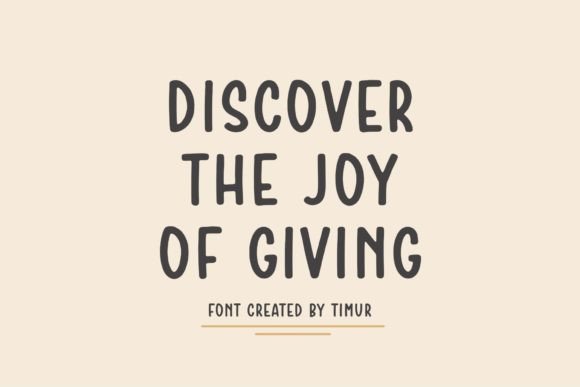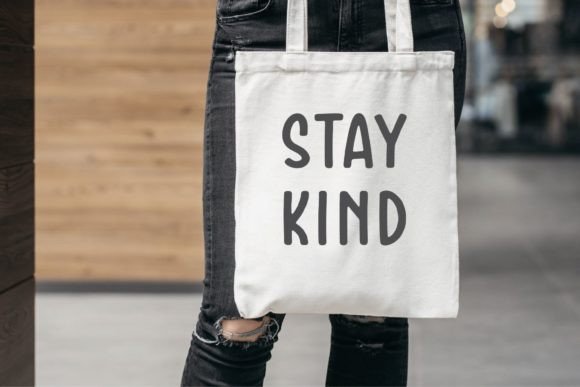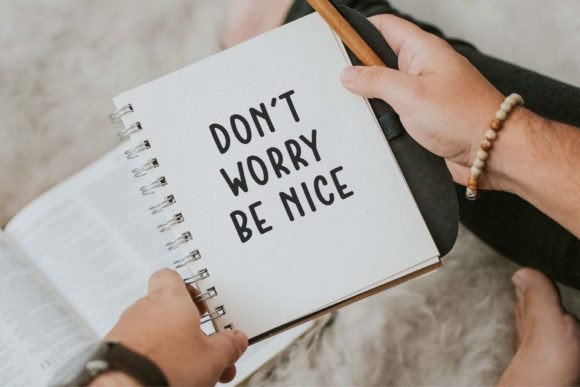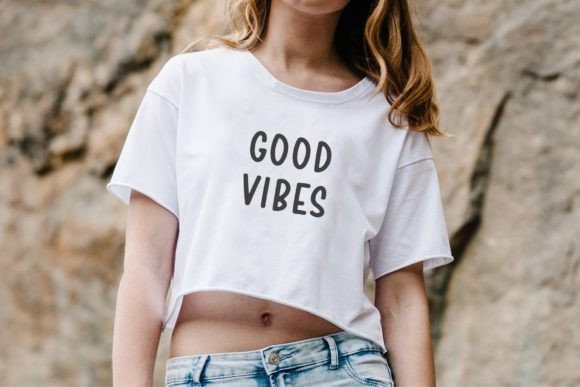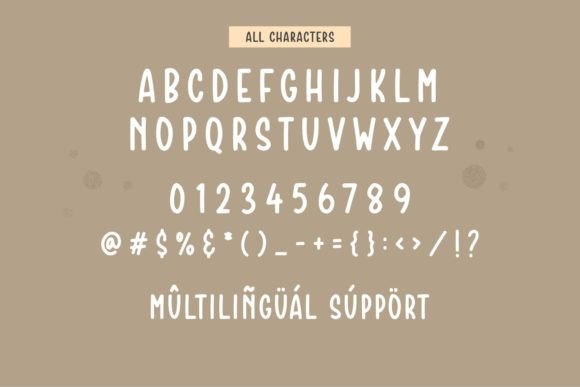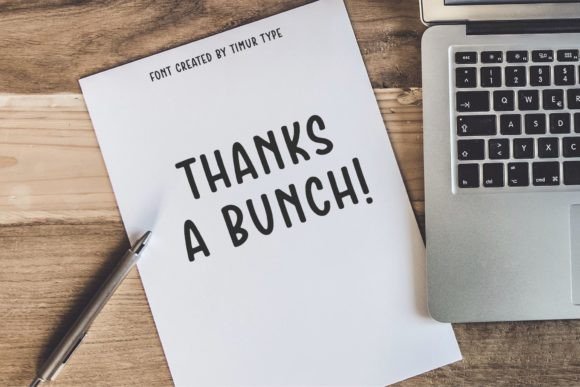
Introduction to Crumble Bakery Font
As a designer, there’s nothing quite like the thrill of bringing a creative project to life. You’ve poured over sketches, experimented with color palettes, and carefully selected the perfect typography – and that’s when you stumble upon it: the perfect font to elevate your design and make it truly shine.
Enter the Crumble Bakery Font, a fresh and neat handwritten font that’s about to become your new go-to design resource. With its incredibly versatile design, this font is suitable for a wide spectrum of applications, from social media graphics to marketing materials and even product labels.
Key Features of Crumble Bakery Font
- High-quality design resource ideal for creative projects, such as bakery logos, cake decorations, and other food-related designs.
- Features a unique, hand-drawn style that adds a touch of warmth and personality to any design project.
- Perfect for branding, packaging, and advertising designs that require a whimsical and eye-catching touch.
Honest Review: Crumble Bakery Font
I recently stumbled upon the Crumble Bakery Font and decided to give it a try for my latest design project. As a designer, I’m always on the lookout for high-quality fonts that can elevate my creative work.
Here are some things that work well with this font:
- ✨ Unique charm: The Crumble Bakery Font has a distinct, vintage feel that’s perfect for projects that require a touch of nostalgia.
- ✨ Wide character set: The font includes a comprehensive set of characters, including Latin, Cyrillic, and Greek scripts.
- ✨ High-quality design: The font is expertly crafted, with smooth lines and precise details.
- ⚠️ Limited transparency options: While the font is great on a solid background, it may not work as well with a transparent background, depending on your design requirements.
- ⚠️ Limited customization options: The font is a fixed design, so you may not be able to adjust the size, weight, or other attributes to suit your specific needs.
Overall, I’m quite impressed with the Crumble Bakery Font. It’s a great addition to any designer’s toolkit, and I’ll definitely be using it in future projects. If you’re looking for a high-quality font with a unique charm, I’d definitely recommend giving it a try.
Common Use Cases for Crumble Bakery Font
Crumble Bakery Font is perfect for baking and food-related designs, as well as any creative project that requires a high-quality, free download font. Use it for invitations, menus, and social media graphics to add a touch of elegance and sophistication.